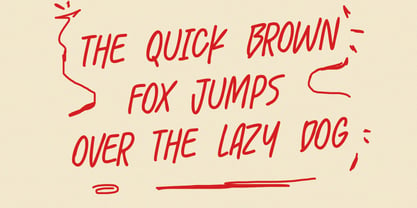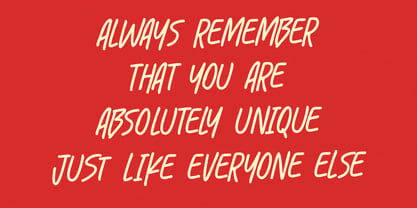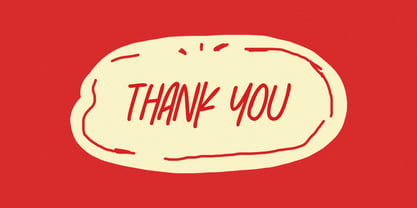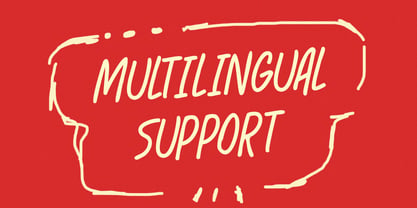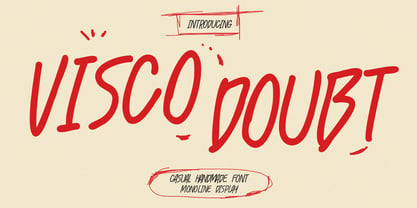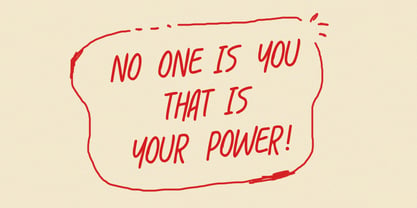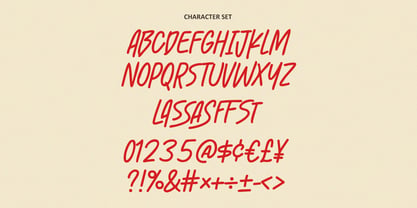
MC Visco Doubt
by Maulana Creative
The MC Visco Doubt Font Family was designed by Gilang Maulana and published by Maulana Creative. MC Visco Doubt contains 1 styles. More about this family
Visco Doubt is a Casual Handmade Monoline Display Font. Unleash a burst of spontaneous energy and authentic character with Visco Doubt, a casual handmade monoline display font that brings the feel of a quick, confident marker stroke to your digital designs. This isn't your average clean, Visco Doubt is designed to be imperfectly perfect. It's lively, slightly bouncing baseline, high energy slant, and rough, textured edges capture the essence of genuine, hand drawn typography, making your message feel immediate, relatable, and fun. Key Features: - Casual and confident style, perfect for designs that need a boost of playful. - Monoline aesthetic, features a consistent stroke weight, mimicking a classic marker or pen. - All caps versatility, works great for headlines, social media graphics, branding for young or edgy products, packaging, and quote graphics. - Comprehensive character set, includes a full range of uppercase letters, numbers, punctuation, and essential symbols, as seen in the character set image. - Multilingual support, ready for global sales with support for multiple languages.
Designers: Gilang Maulana
Foundry: Maulana Creative